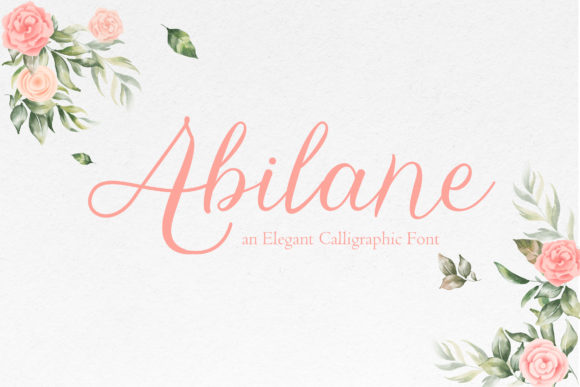
The Abilane Font: A Designer’s Dream Come True
I’ll never forget the time I was working on a logo design project for a client’s upscale boutique. I had a clear vision of what I wanted to create, but I just couldn’t find the right font to bring it all together. The client wanted something elegant, sophisticated, and eye-catching, but everything I tried seemed to fall flat. That’s when I stumbled upon the Abilane font, and let me tell you, it was love at first sight! 💕
Abilane Font: A Lovely and Elegant Calligraphic Font
Abilane is a stunning calligraphic font that has become a go-to in my design toolkit. It’s perfect for creating beautiful logos, branding, and quotes that need a touch of elegance. Every letter has a unique and beautiful touch, which makes it a joy to work with. Whether you’re a designer, crafter, or creative hobbyist, Abilane is sure to make your designs come alive!
- ✨ Elegant and sophisticated design that’s perfect for high-end branding and logos
- ✅ Unique and beautiful touch to every letter, making it a standout in any design
- 💫 Highly versatile and can be used for a wide range of design projects, from invitations to social media graphics
- 👍 Easy to read and understand, even in smaller font sizes
While Abilane is an amazing font, there are a few things to keep in mind. 🤔 For example, some of the more intricate details can get lost when used in very small font sizes. ⚠️ Additionally, the font may not be suitable for body text or longer blocks of text, as it’s more designed for headlines and titles.
The Designer Inspiration Behind Abilane
Abilane was designed with the intention of creating a beautiful, elegant calligraphic font that would bring a touch of sophistication to any design. The designer, who wishes to remain anonymous, drew inspiration from traditional calligraphy and hand-lettering techniques. The result is a font that’s both timeless and modern, with a unique and beautiful touch to every letter.
| Font Name | Abilane Font |
| Author | TypeFactory |
Q: What is Abilane font best used for?
A: Abilane font is best used for creating eye-catching logos, branding, and quotes that require an elegant and sophisticated touch.